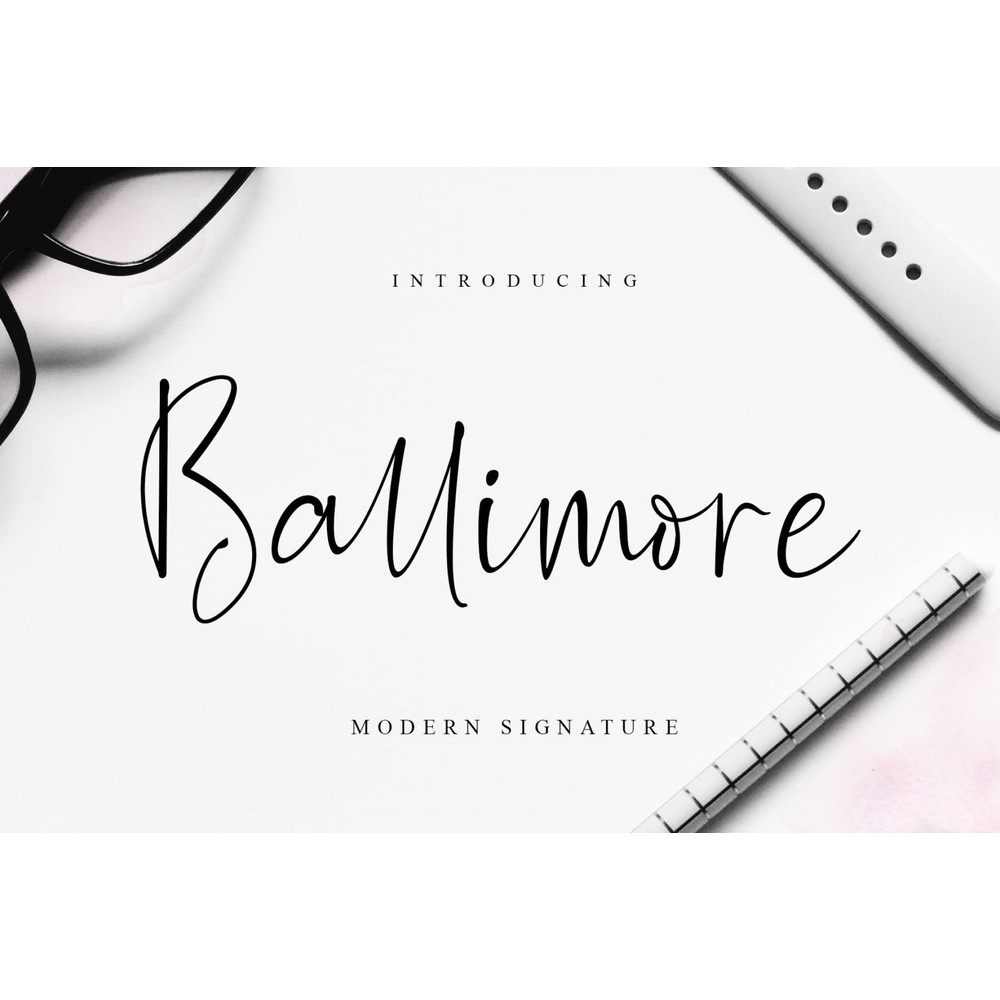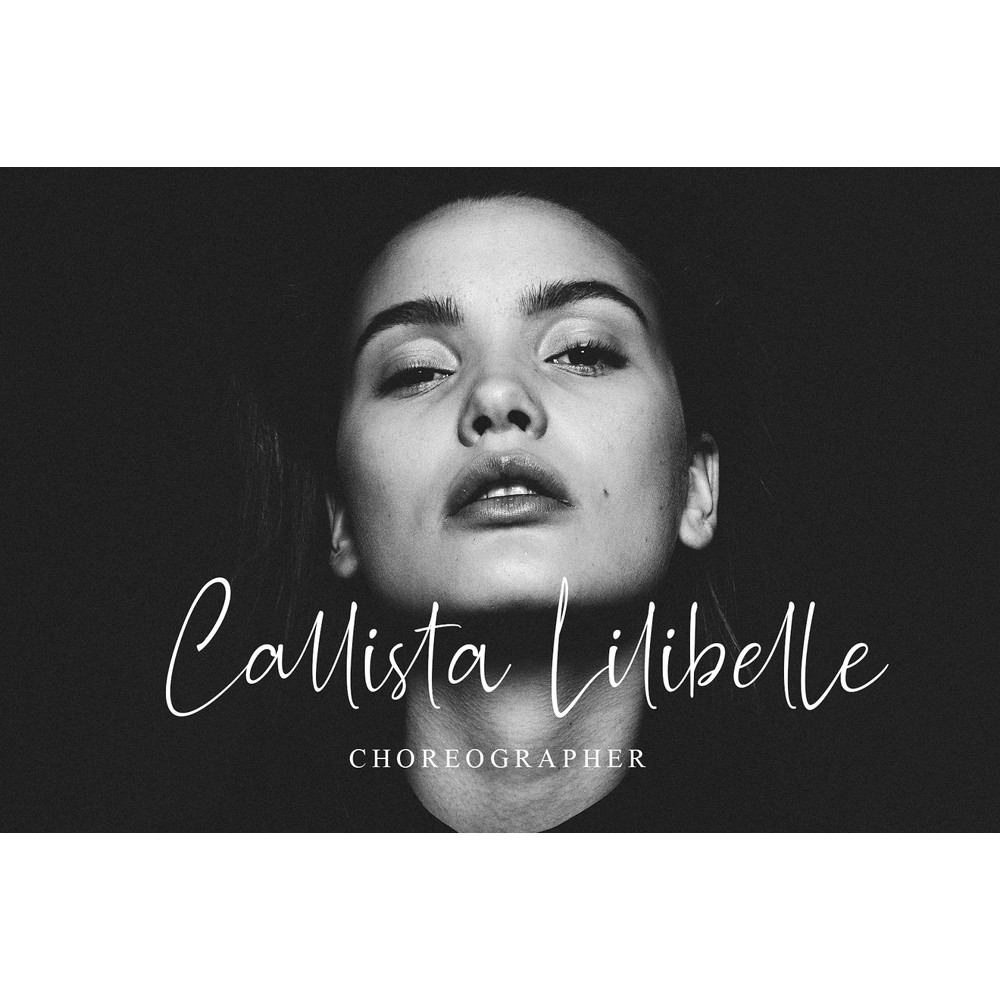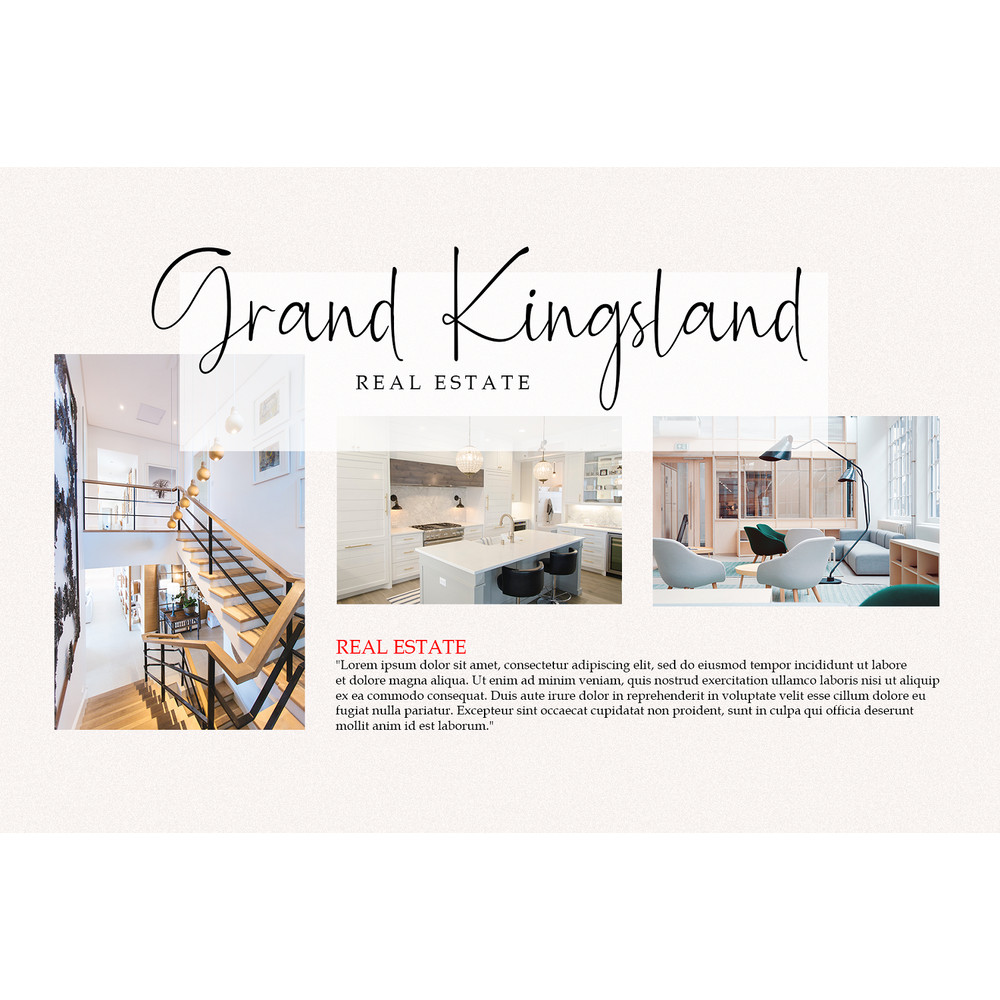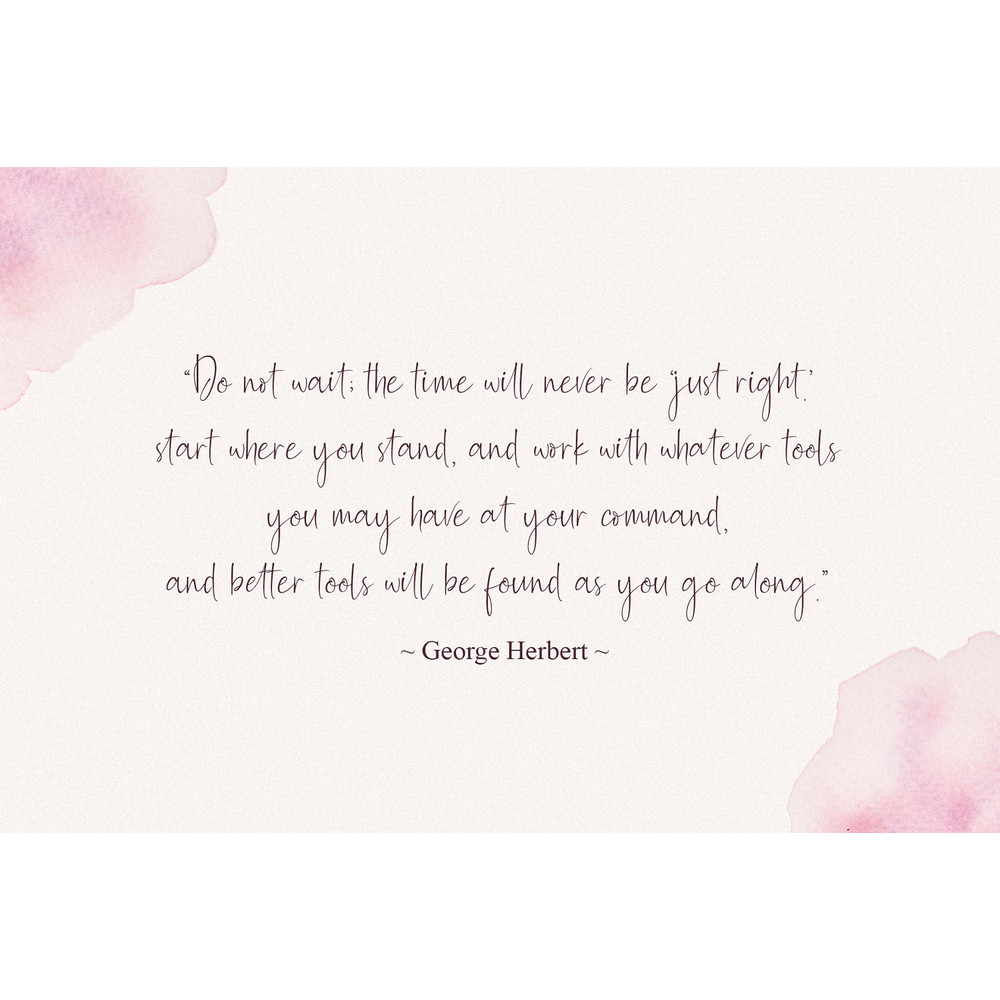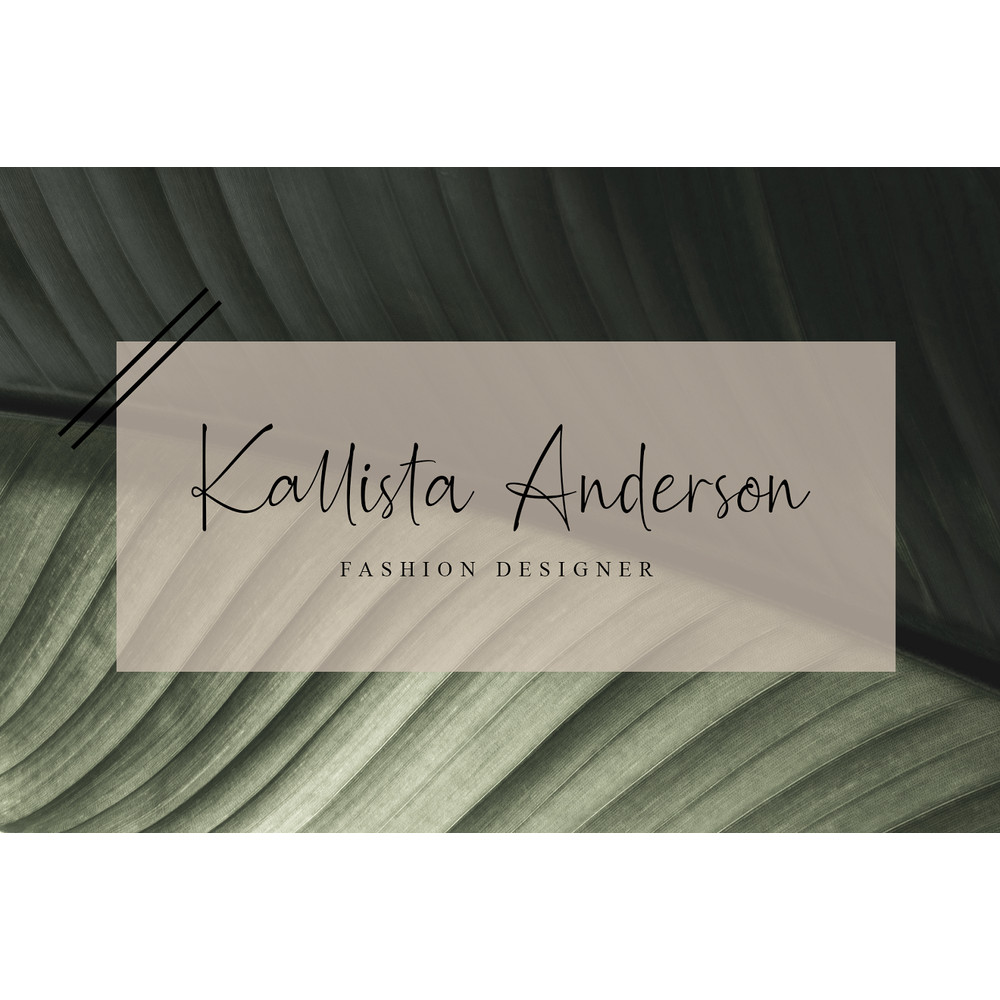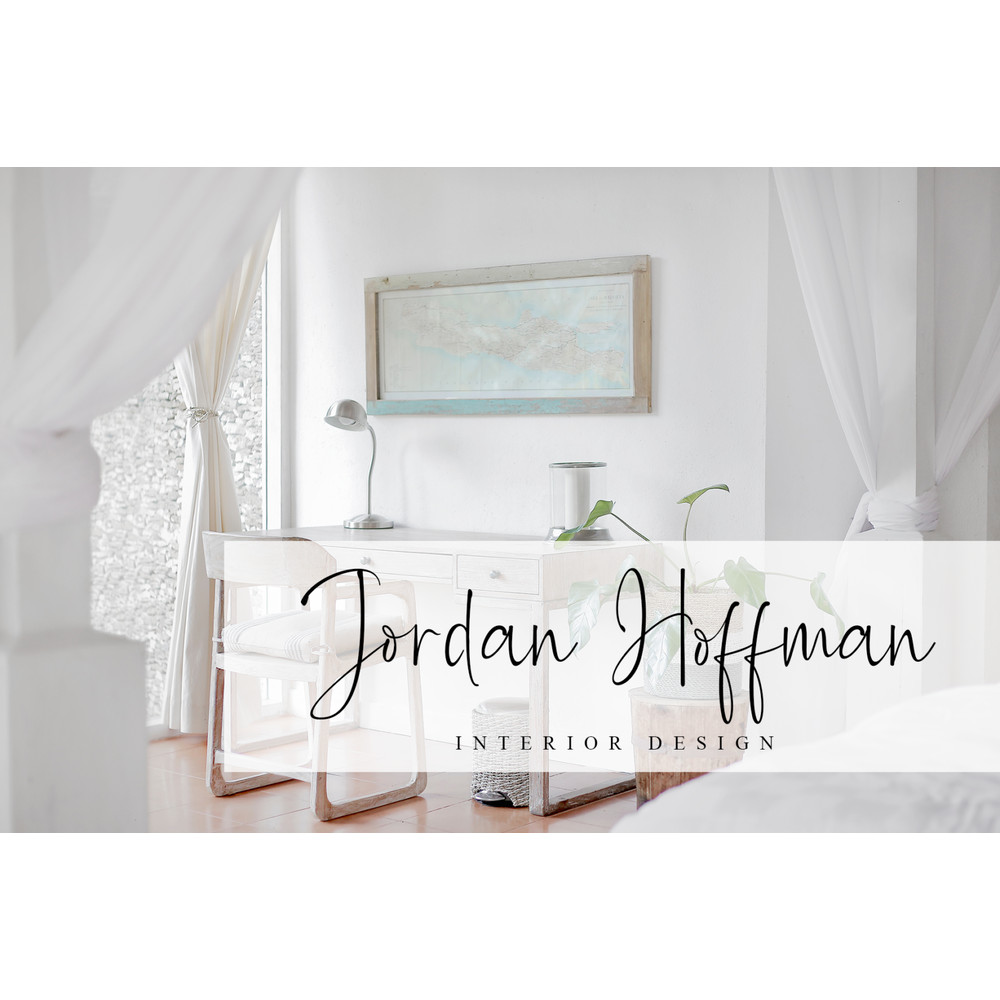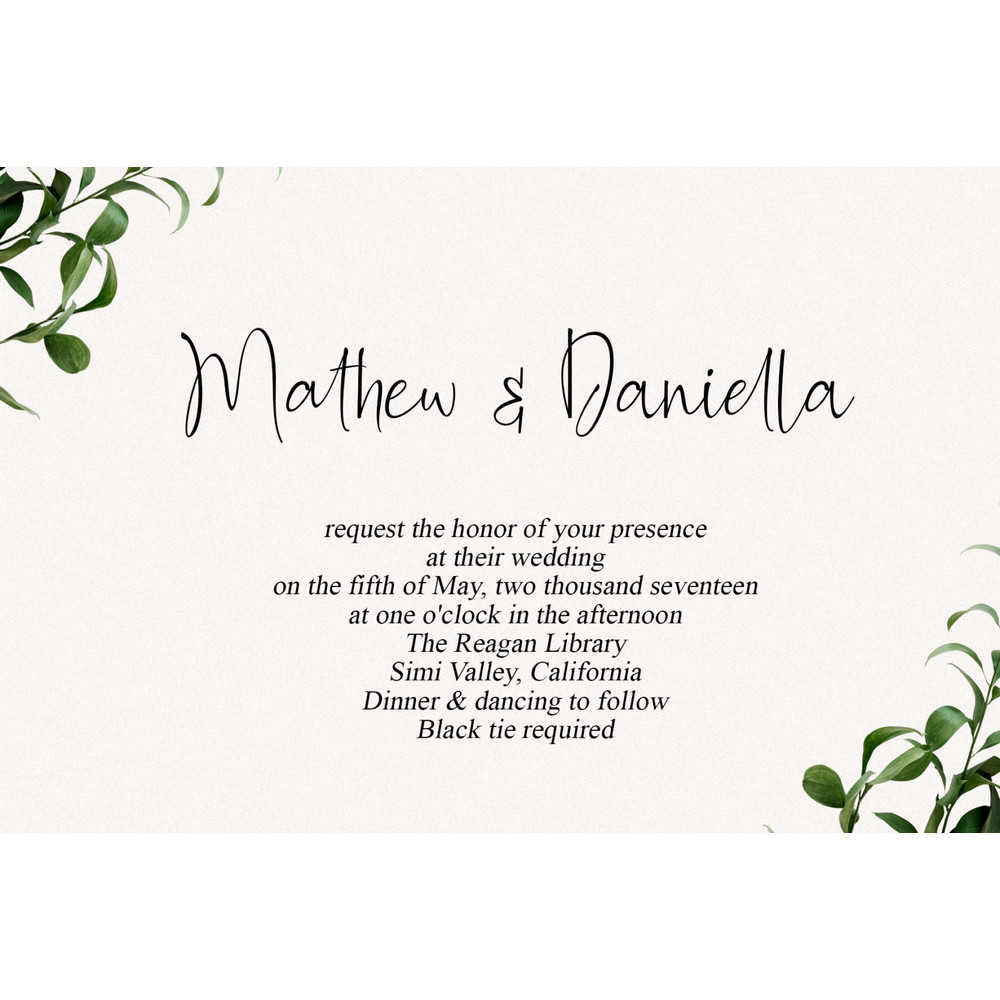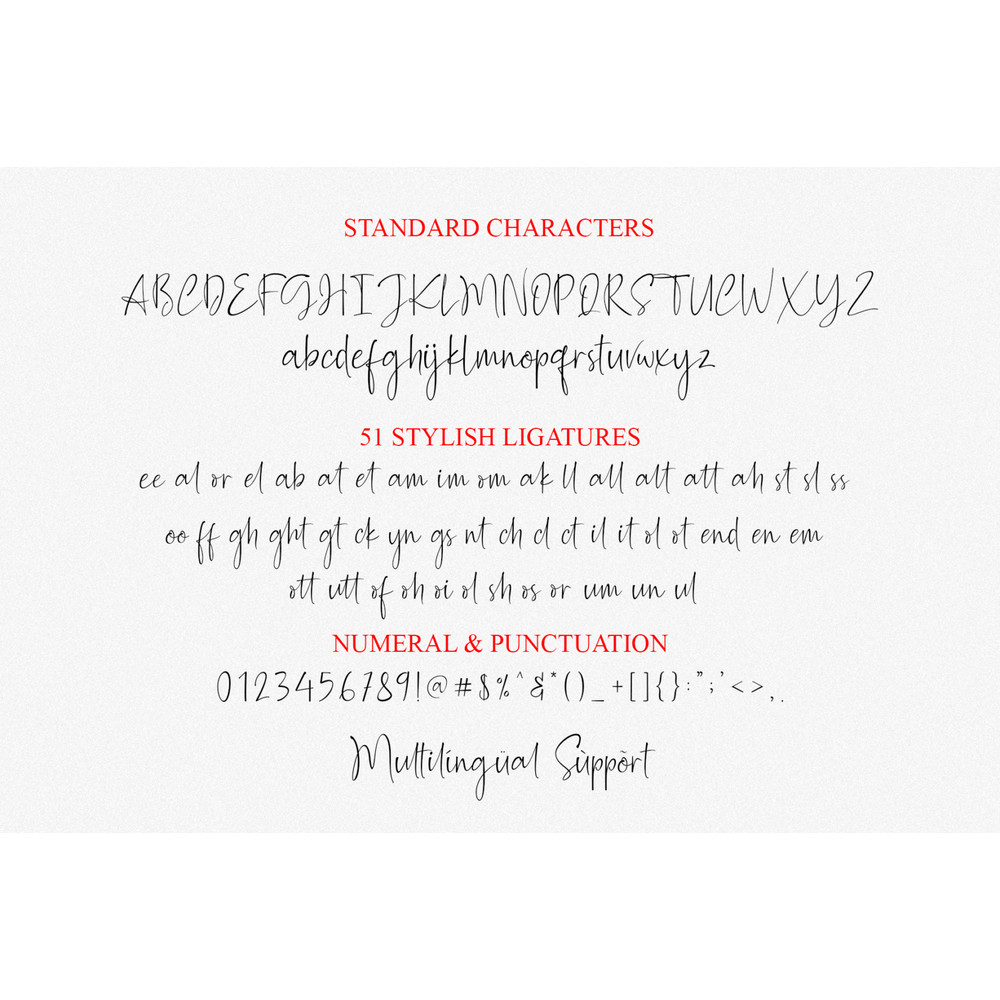
Ballimore – Modern Signature Trending Fonts - Digital Font
Modern SignatureBallimore is a beautiful Handwriting font perfect for branding, invitation, stationery, wedding designs, social media posts, advertisements, product packaging, product designs, label, photography, watermark, special events or anything. Ballimore comes with a full set of uppercase and lowercase letters, 51 beautiful ligatures, multilingual symbols, numerals, and punctuation